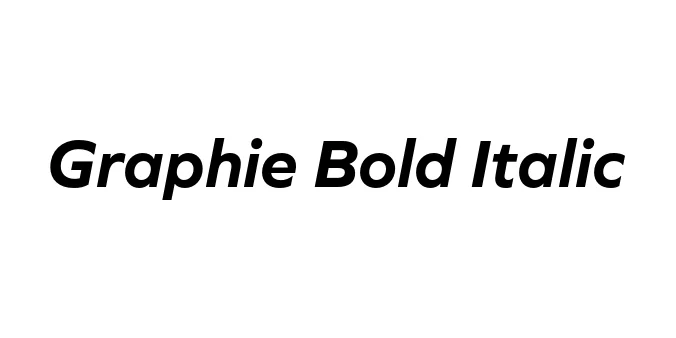
Graphie Bold Italic
Designed by Kostas Bartsokas
Graphie Bold Italic is a standout member of the Graphie family, a geometric sans-serif typeface meticulously designed by Kostas Bartsokas. It strikes a sophisticated balance between mathematical precision and humanist warmth, featuring a robust weight and a dynamic slant that provides a sense of urgency and modernity. The design architecture focuses on clean lines and open counters, ensuring the font remains highly legible even within complex digital layouts or high-speed visual communications.
This specific weight and style are engineered to excel in branding, editorial design, and sophisticated advertising. Its contemporary aesthetic makes it a favorite for digital interfaces and corporate identities that require a bold, forward-thinking personality. Graphie Bold Italic integrates seamlessly into the wider font family, offering designers a versatile tool for creating typographic hierarchy and stylish emphasis in professional creative projects.
Graphie Bold Italic Best Uses
Ideal for creating impactful logos and cohesive corporate identity systems.
Perfect for high-contrast headers and engaging call-to-action buttons.
Excellent for pull quotes and emphasized body text in magazines and journals.
High-visibility style suitable for large-scale posters and digital banners.